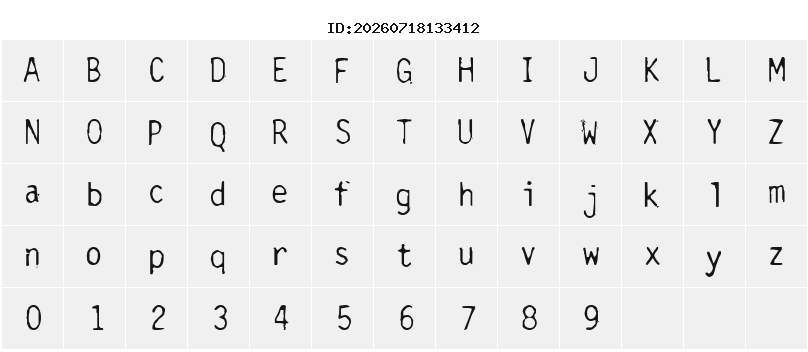
Carbonated Gothic Preview
• Font Name: Carbonated Gothic
• Full Font Name: Carbonated Gothic
About Carbonated Gothic.ttf
Carbonated Gothic.ttf is a modern, elegant sans-serif font designed for ultimate readability and visual harmony. Perfect for branding, headlines, web design, and print materials.